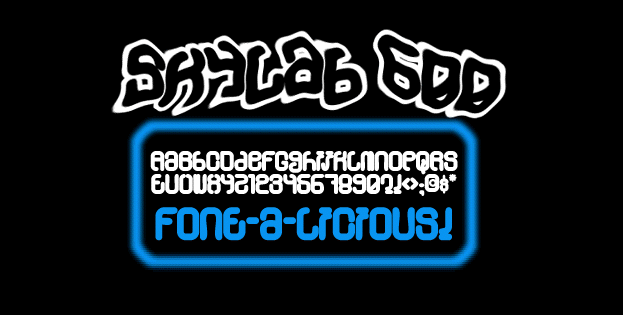
HomeFont BrosSkylab 600 Font Bros Skylab 600 FacebookTwitterPinterestWhatsApp 1 of 1 About Skylab 600 Who likes futuristic fonts? Who likes Electronic music? Put them together, what do you get? Uhh, this font? Yeah, probably. Yes, definitely!  DOWNLOAD NOW People also explored Vegetability Highland Font LittlePoppy Font Bachelor Achima Font Kinder Kids Font Masbety Font Whay Hughes Font Fishing Font 90 0 TagsSkylab 600 Font Previous articleAlpha EchoNext articleTelecast LEAVE A REPLY Cancel reply Comment: Please enter your comment! Name:* Please enter your name here Email:* You have entered an incorrect email address! Please enter your email address here Website: Save my name, email, and website in this browser for the next time I comment. Personal Use Free Oatmeal Personal Use Free Read more about this font BD Medled Personal Use Free Read more about this font Mail Ray Stuff Personal Use Free Read more about this font Coolvetica Font Personal Use Free Read more about this font BLOG Free Fonts Risk: Why Free Fonts Can Be Dangerous for Designers Free Fonts Risk: Why Free Fonts Can Be Dangerous for Designers Using free fonts is a common practice in web and graphic design. However, the... Top 7 Google Fonts Alternatives for Faster and Privacy-Friendly Web Design (2025) Where to Buy American Fonts Online in 2024 Free vs Paid Fonts: Why Investing in Premium Fonts Is Worth It